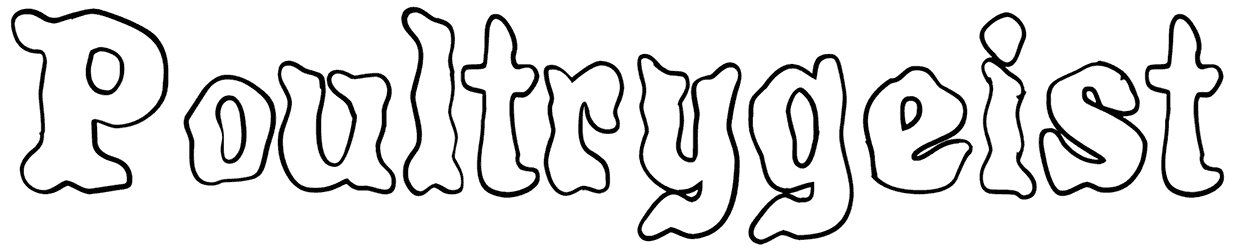
Poultrygeist Font
Poultrygeist is a terrific horror font that grabs your eye from the first second. This fancy font is offered in two versions, giving you more options in several situations.
Thus, you may use the Poultrygeist font in posters, websites, or movie titles, and prints on clothing. This psychedelic font’s letters have a wave texture with smooth edges that seem attractive to the viewers. So, give it a try now and create a new experience for your audience.